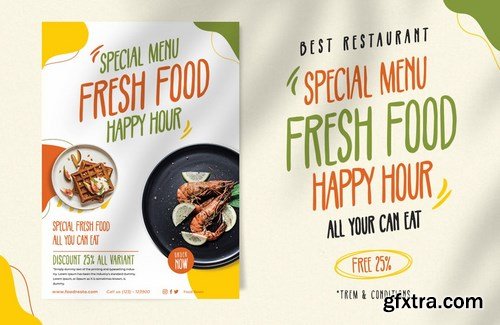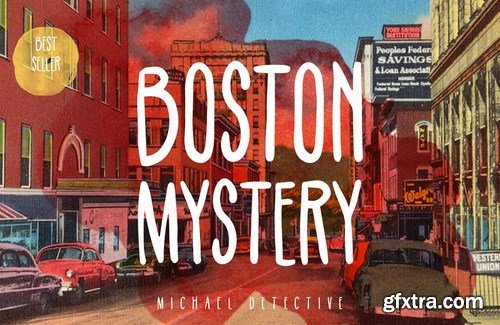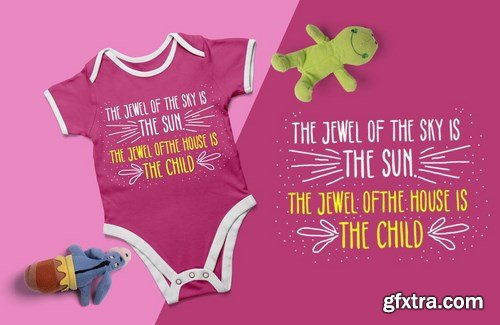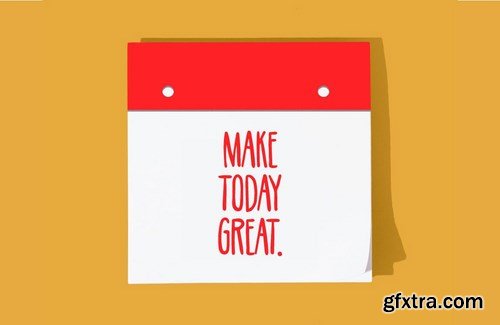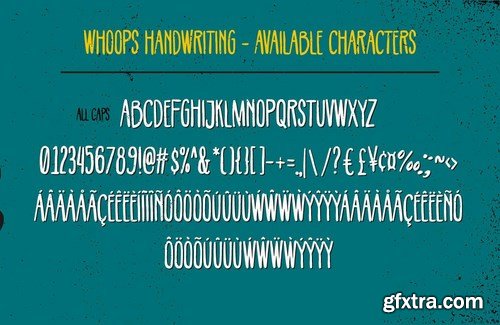
Whoops
Meets Whoops crafted handwriting on a Sans Serif typefaces. It generates a lot more fun, more trendy and more vibrant. It’s Versatile, Fun, Cute and Beauty feel that you get in Whoops Typeface